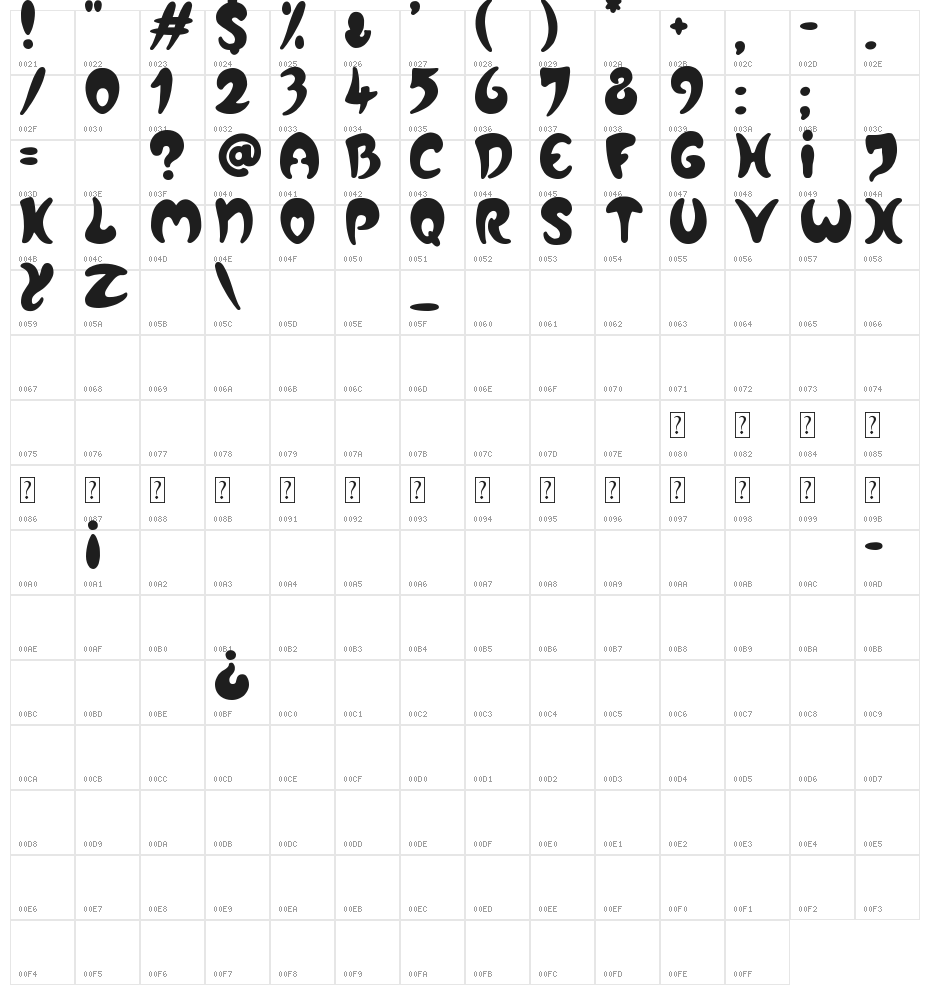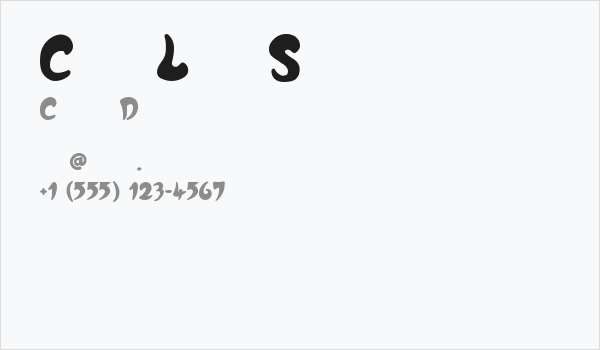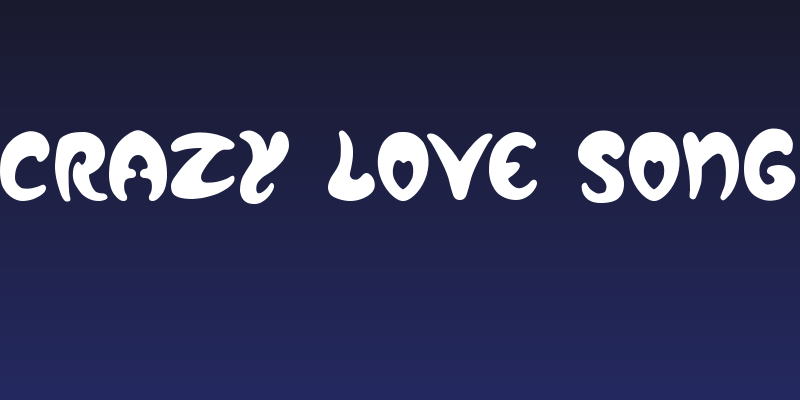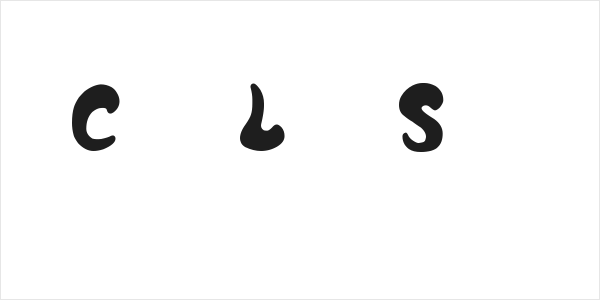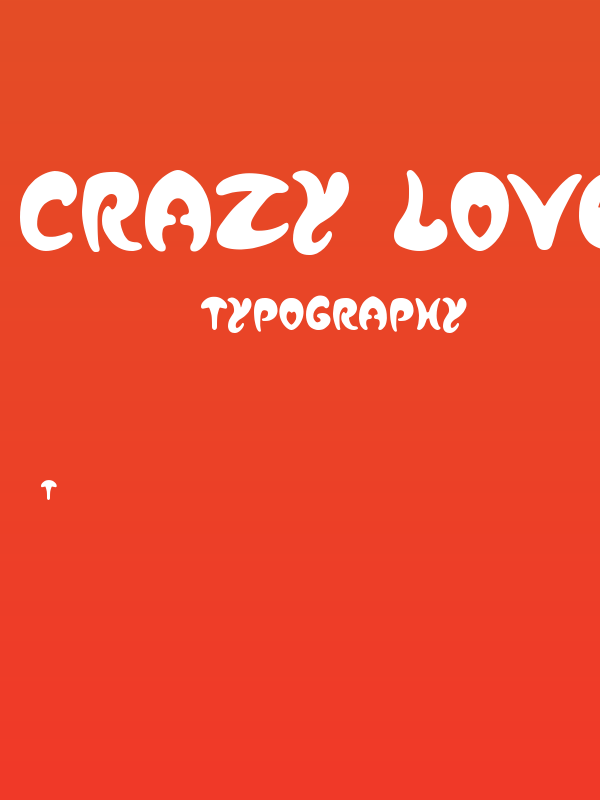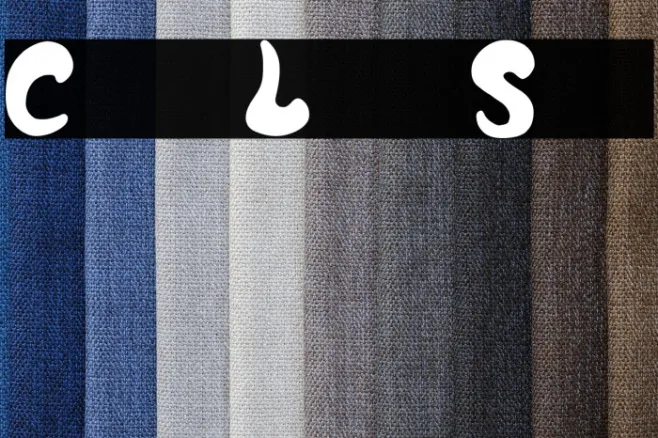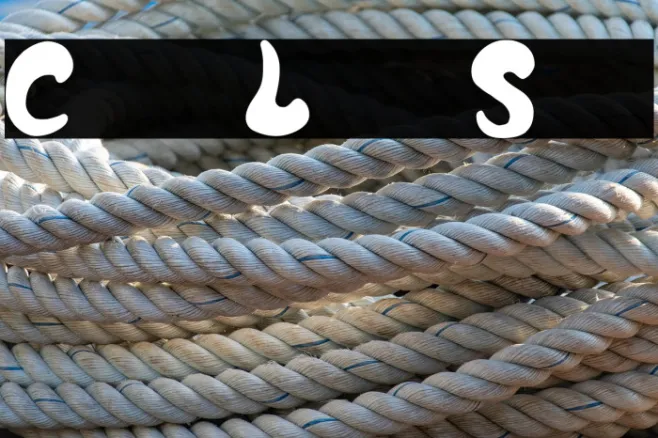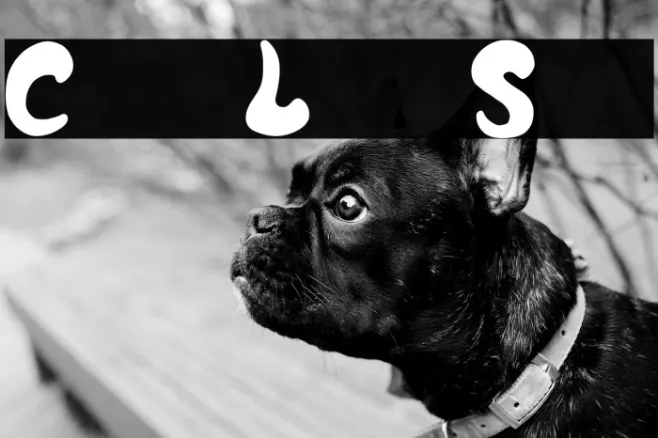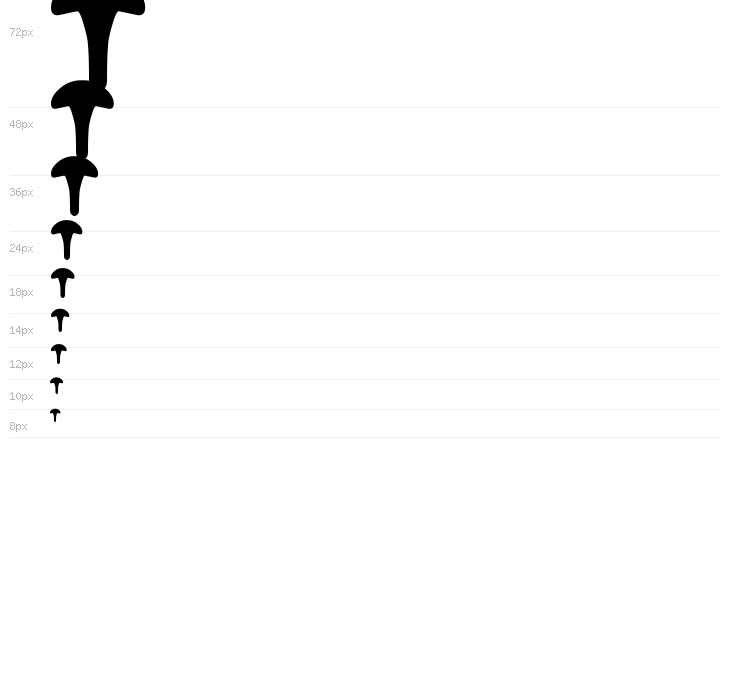
Crazy Love Song Font
Crazy Love Song Description
This playful and bold font features a unique, rounded style with exaggerated curves and a whimsical flair. The characters are designed with a heavy weight, giving them a strong presence on the page. The uppercase and lowercase letters maintain a consistent style, with rounded edges and a slightly condensed form. Numbers and special characters follow the same playful design, making the font suitable for creative and fun projects. The overall appearance is lively and energetic, perfect for capturing attention and conveying a sense of joy and excitement.